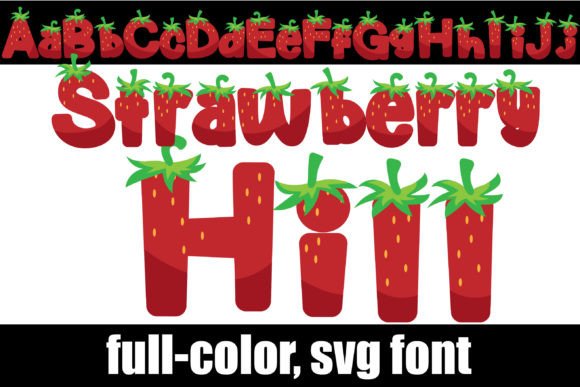
Prepare yourself to be captivated by the Strawberry Hill Font, an explosion of creativity exclusively designed by the talented visionaries at Illustration Ink. Picture yourself immersed in a world of vibrant colors, where your words dance and leap off the page, leaving an indelible mark on your audience's hearts.
Meet the Strawberry Hill Font: A Kaleidoscope of Colors
Strawberry Hill Font bursts onto the scene as an OpenType full-color font, an exceptional creation that stands out from the monotonous crowd. It's not just a font; it's an artistic masterpiece, a fusion of sans-serif lettering elegantly adorned with strawberry seeds and leaves. This extraordinary font will transform your designs into captivating masterpieces that resonate with life and energy.
A Symphony of Creativity
Unleash your imagination and let Strawberry Hill Font take you on a journey through a spectrum of colors. With its full range of hues and captivating styles, this font is your passport to endless possibilities. Whether you seek to craft enchanting text logos or weave intricate illustrations, Strawberry Hill Font is your magic wand, ready to cast spells of creativity upon your designs.
A Masterpiece of Versatility
Strawberry Hill Font isn't merely a font; it's a chameleon that adapts seamlessly to your every whim. Its versatility knows no bounds, whether you're a designer, a social media enthusiast, or a creative soul seeking to add a spark of individuality to your projects. Its essence shines brightest on platforms like Instagram, where it captivates and mesmerizes, leaving your followers spellbound.
Experience the Magic of Strawberry Hill Font
Strawberry Hill Font is more than just a collection of letters; it's an experience that will leave you spellbound. Its vibrant colors and captivating designs will transport you to a realm where creativity flourishes, and inspiration flows like a river. So, immerse yourself in the world of Strawberry Hill Font and let your imagination soar to new heights.